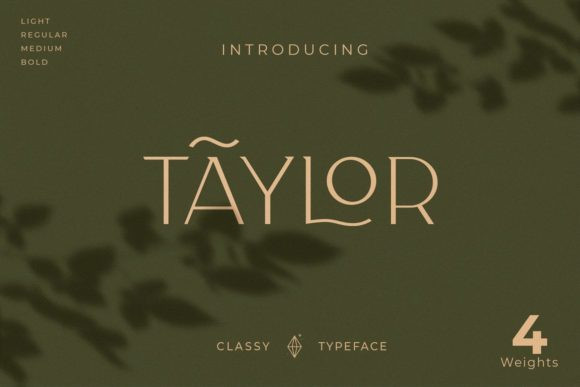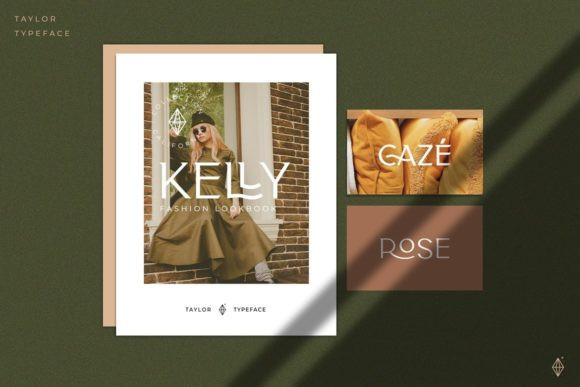
Taylor Font
Taylor is a classy, thin and elegant serif font. Chic and light, this font will add a touch of elegance to each of your creative ideas. Taylor is PUA encoded which means you can access all of the glyphs and swashes with ease!